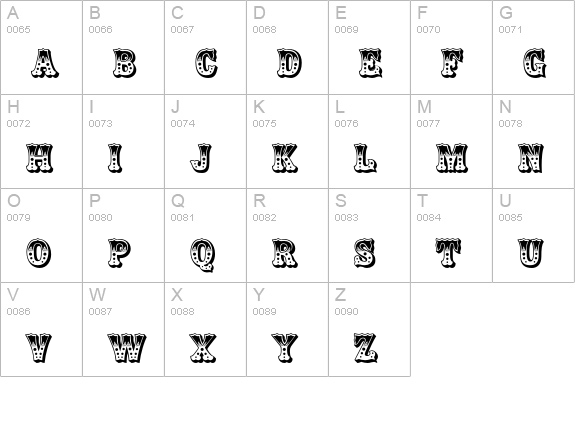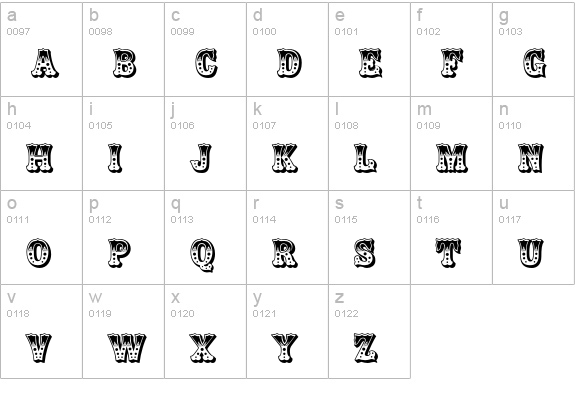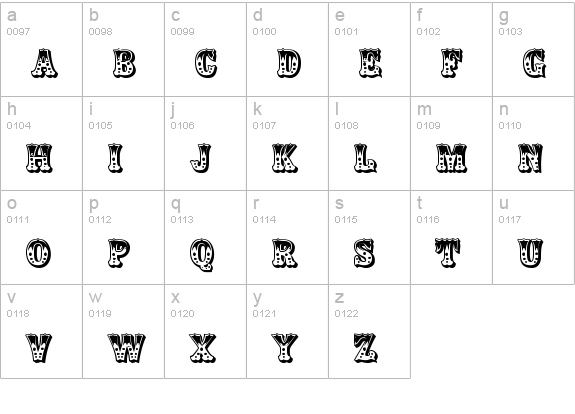
Zebrawood Std Font Details
Zebrawood Std font is a stunning typeface that exudes elegance and sophistication. With its unique combination of bold strokes and intricate details, this font is perfect for making a statement in your design projects. The characteristic zebra-like patterns in the wood-inspired letterforms add a touch of modernity and style to any creative piece. What sets Zebrawood Std font apart is not just its eye-catching appearance, but also the fact that it is freely available to download at FontsMarket.com. This means that you can easily access and use this beautiful font in your designs without any hassle. Whether you're working on branding, packaging, posters, or any other project that requires a touch of flair, Zebrawood Std font is sure to elevate your work to the next level. Embrace the beauty and versatility of Zebrawood Std font today and let your creativity soar with this amazing typeface. Download it for free at FontsMarket.com and unlock a world of design possibilities.